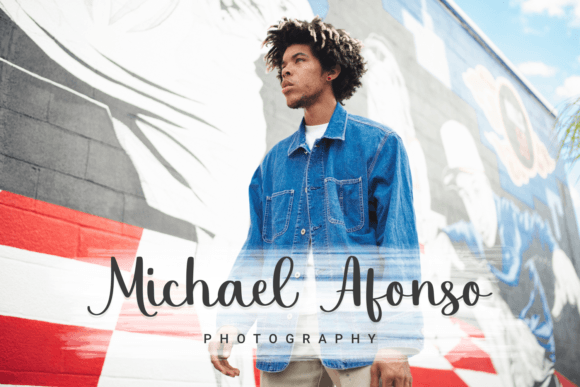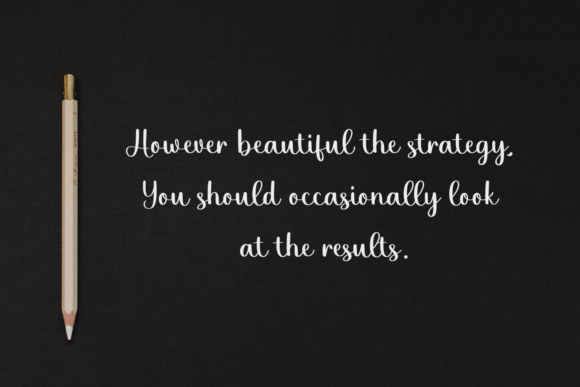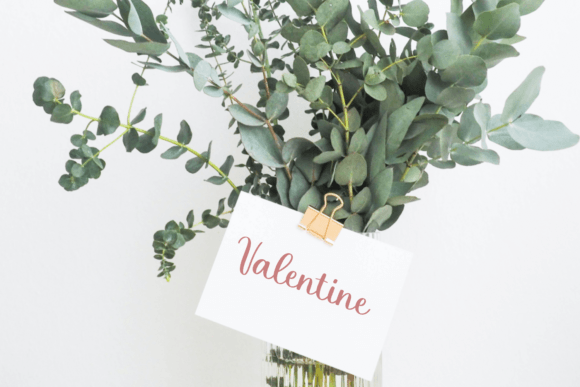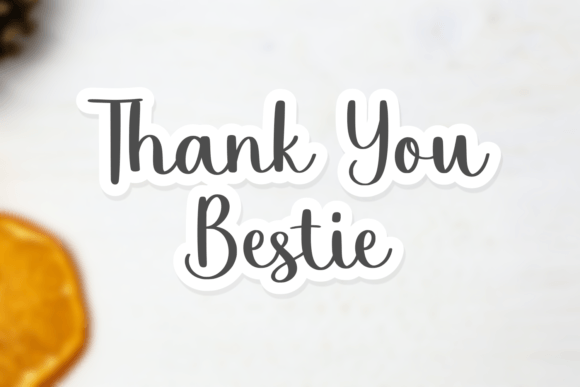
Introducing Gelap Font: Elevate Your Designs with a Simple yet Powerful Handwritten Style
Are you tired of using the same old fonts in your designs? Look no further than Gelap Font, a beautiful and simple handwritten font that can instantly elevate your logos, labels, branding, invitations, websites, quotes, and more. With Gelap, you can add a touch of personality and whimsy to your designs, making them stand out from the crowd.
What is Gelap Font?
Gelap Font is a carefully crafted handwritten font that exudes simplicity and elegance. Its clean lines and flowing curves make it perfect for a wide range of design applications, from digital to print. Whether you’re a designer, crafty DIY enthusiast, or small business owner, Gelap Font is an excellent choice for anyone looking to add a personal touch to their creations.
Key Features of Gelap Font
- Simple and Handwritten: Gelap Font boasts a beautiful, handwritten style that’s easy to read and looks great in various design contexts.
- Versatile: Use Gelap Font in logos, labels, branding, invitations, websites, quotes, and more to create a cohesive visual identity.
- Elegant and Whimsical: The font’s flowing curves and clean lines strike the perfect balance between elegance and playfulness.
- Easy to Read: Gelap Font is designed to be highly legible, making it perfect for body text, headings, and titles.
Gelap Font is incredibly versatile, and its uses are endless. Here are a few ideas to get you started:
- Logos and Branding: Use Gelap Font to create a unique and memorable logo that reflects your brand’s personality.
- Invitations and Stationery: Add a touch of elegance and whimsy to your invitations, greeting cards, and stationery with Gelap Font.
- Websites and Blogs: Use Gelap Font to create beautiful headings, titles, and body text that will make your website or blog stand out.
- Social Media Graphics: Create eye-catching social media graphics, quotes, and posters with Gelap Font.
- Crafting and DIY Projects: Use Gelap Font to add a personal touch to your crafting and DIY projects, such as signs, banners, and iron-on designs.
With so many fonts available, why choose Gelap Font? Here are a few reasons:
- Unique and Memorable: Gelap Font is a unique and memorable font that will help your designs stand out from the crowd.
- High-Quality: Gelap Font is a high-quality font that’s been carefully crafted to ensure it looks great in various design contexts.
In conclusion, Gelap Font is a simple yet powerful handwritten font that can elevate your designs and make them a true standout. With its clean lines, flowing curves, and elegant style, Gelap Font is perfect for a wide range of design applications. Whether you’re a designer, crafty DIY enthusiast, or small business owner, Gelap Font is an excellent choice for anyone looking to add a personal touch to their creations. So why wait? Download Gelap Font today and start creating stunning designs that will leave a lasting impression!